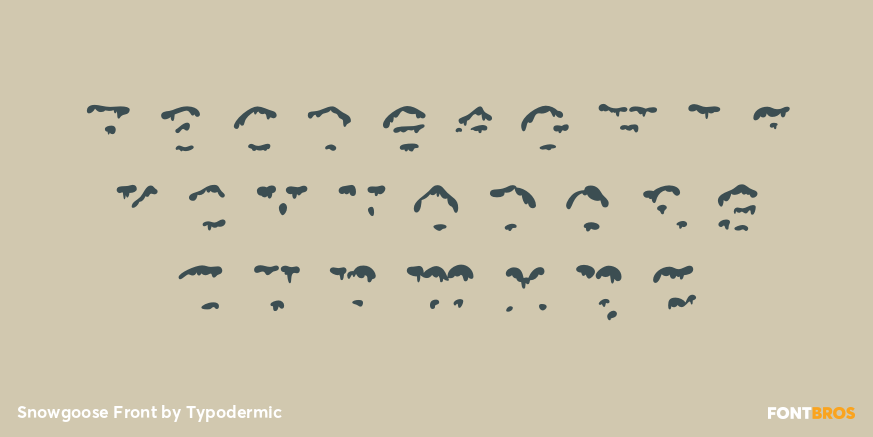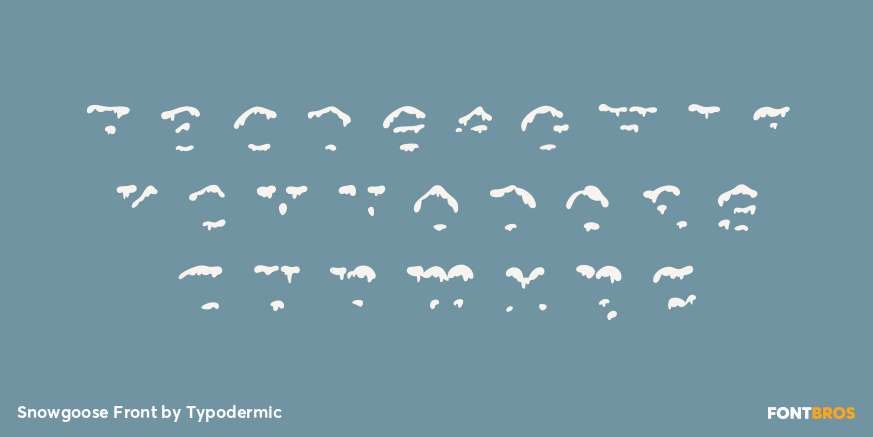
Snowgoose Front
Buy NowSnowgoose Front isolates the snow covering from Snowgoose's blackletter body. Aligned over Snowgoose Back, it completes the family's theatrical snow-capped effect while remaining free to use a contrasting color, specialty ink, glitter, varnish, illuminated material, or separate motion cue. On its own, Front is an overlay rather than a complete text style.
Use Snowgoose Front for Christmas packaging, shop windows, personalized gifts, television graphics, seasonal attractions, and campaign animation in which the snow appears independently from the title. Match its text, size, spacing, and position to Snowgoose Back for accurate registration; use Snowgoose Regular when the complete effect only needs a single color and layer.